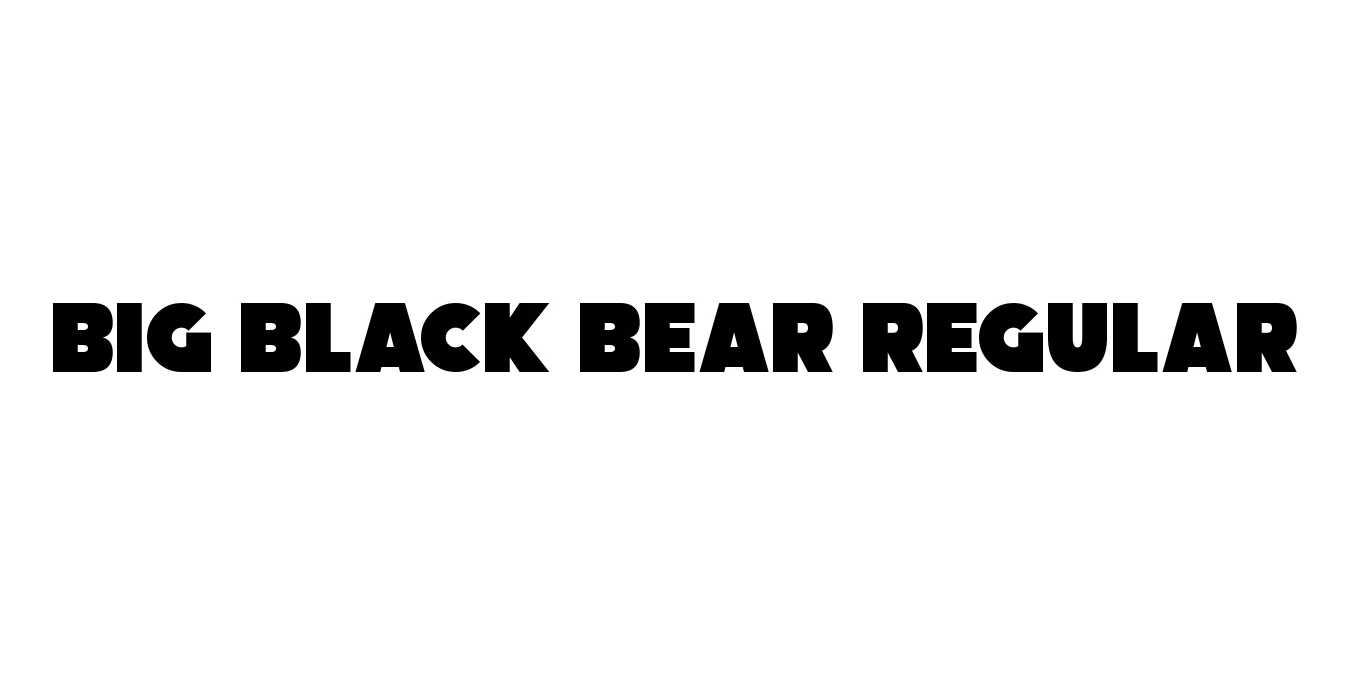
Big Black Bear Regular
Designed by Hanoded (David Kerkhoff)
| Category | Display / Hand-drawn |
| Designer | Hanoded (David Kerkhoff) |
| Similar Fonts | Chunky Monkey, HWT Animal Alphabet, Bold Finger |
Big Black Bear Regular is a bold, chunky, and exceptionally playful typeface designed to bring a sense of friendly authority to any creative project. Its hand-drawn strokes and slightly irregular contours provide an organic, approachable feel that distinguishes it from more clinical digital fonts. The heavy weight of the characters ensures that headlines remain legible and high-impact, making it a favorite among designers looking for a balance between weight and whimsy.
This typeface is particularly well-suited for children's literature, event posters, and packaging design where a touch of personality is required. Because of its thick proportions and unique personality, Big Black Bear Regular excels in large formats, allowing the subtle nuances of its hand-crafted edges to shine. It remains a top choice for projects that aim to be bold yet inviting, bridging the gap between professional design and childlike wonder.
Big Black Bear Regular Best Uses
Creating bold, memorable identities for toy stores or creative agencies.
Ideal for title pages and headers in storybooks and educational materials.
Perfect for eye-catching quotes and high-energy promotional posts.
Works great for organic food brands or artisanal product labels.
Excellent for event headlines that need to be seen from a distance.